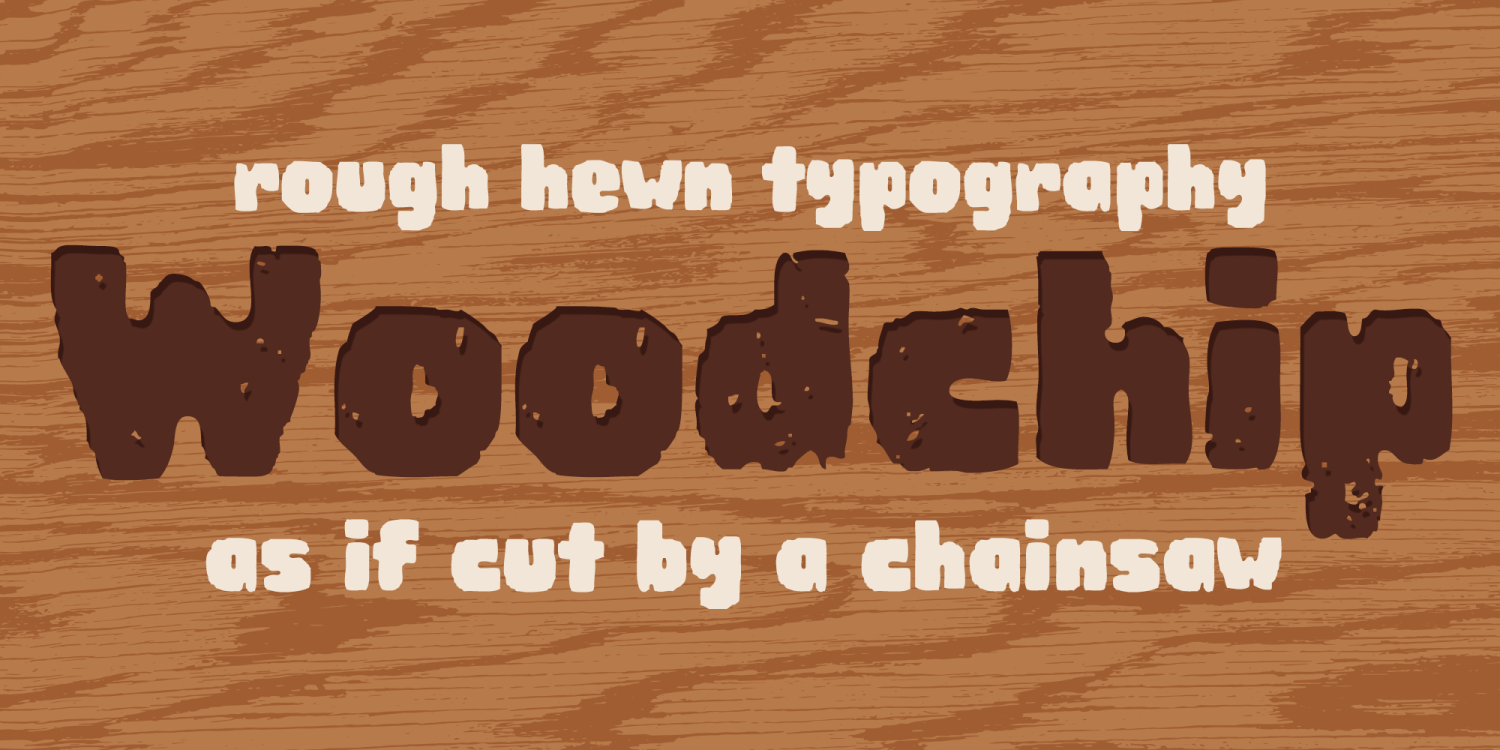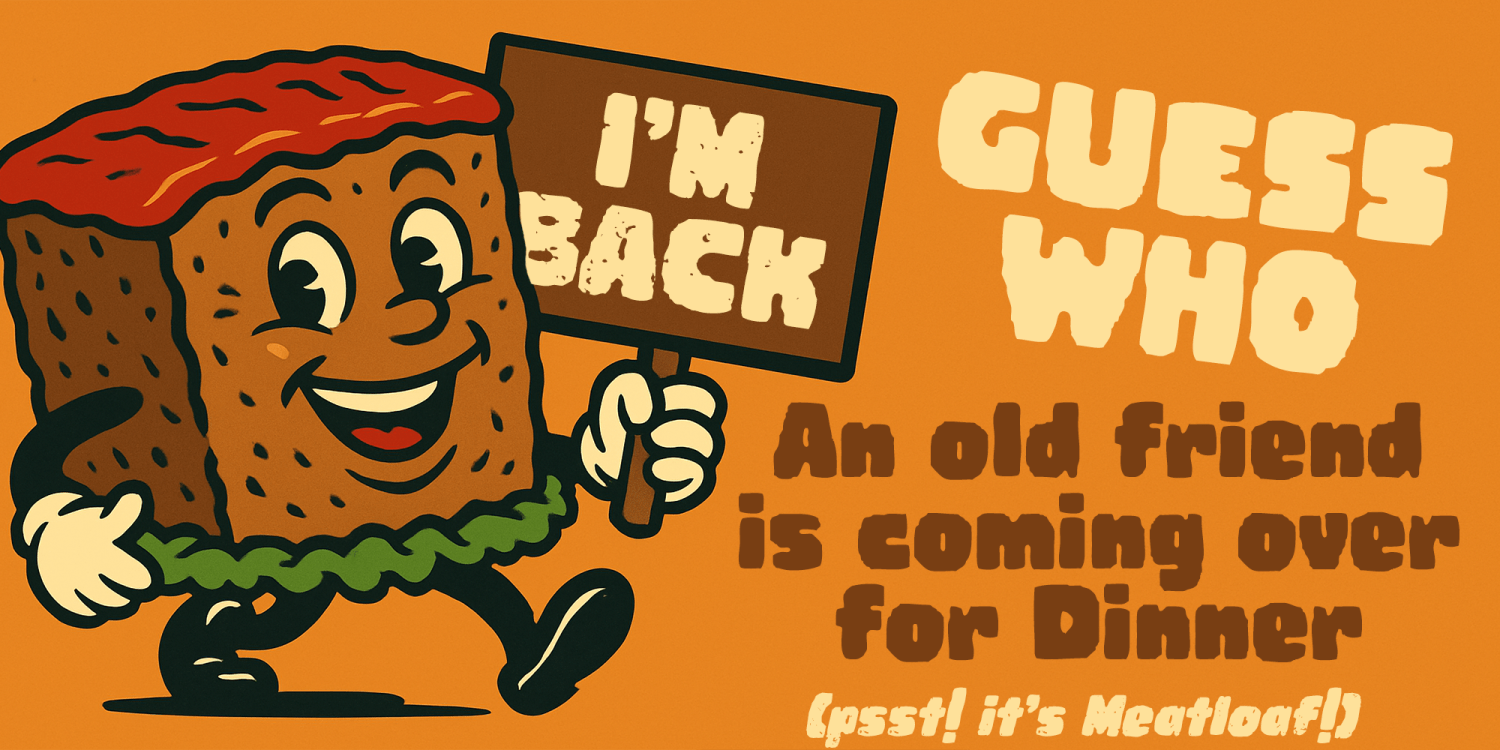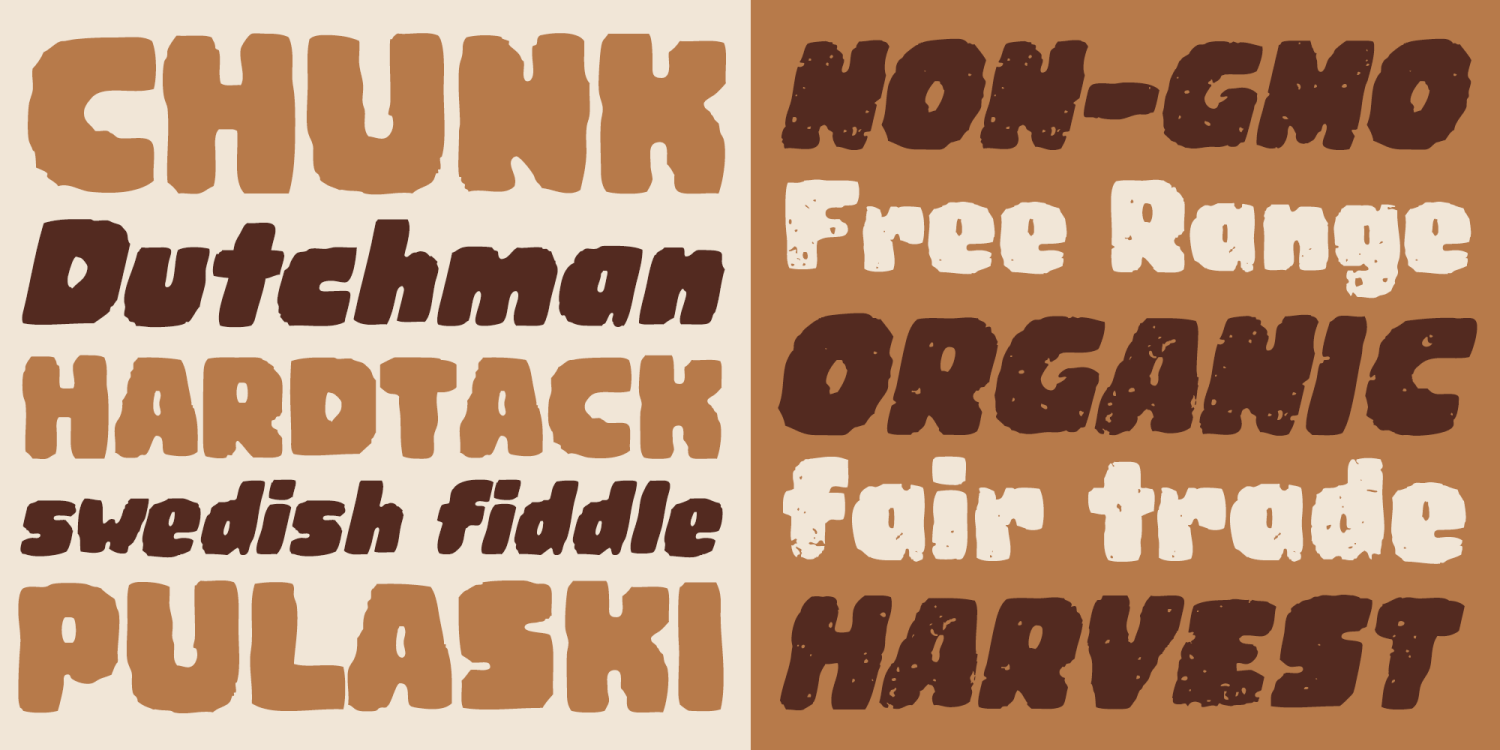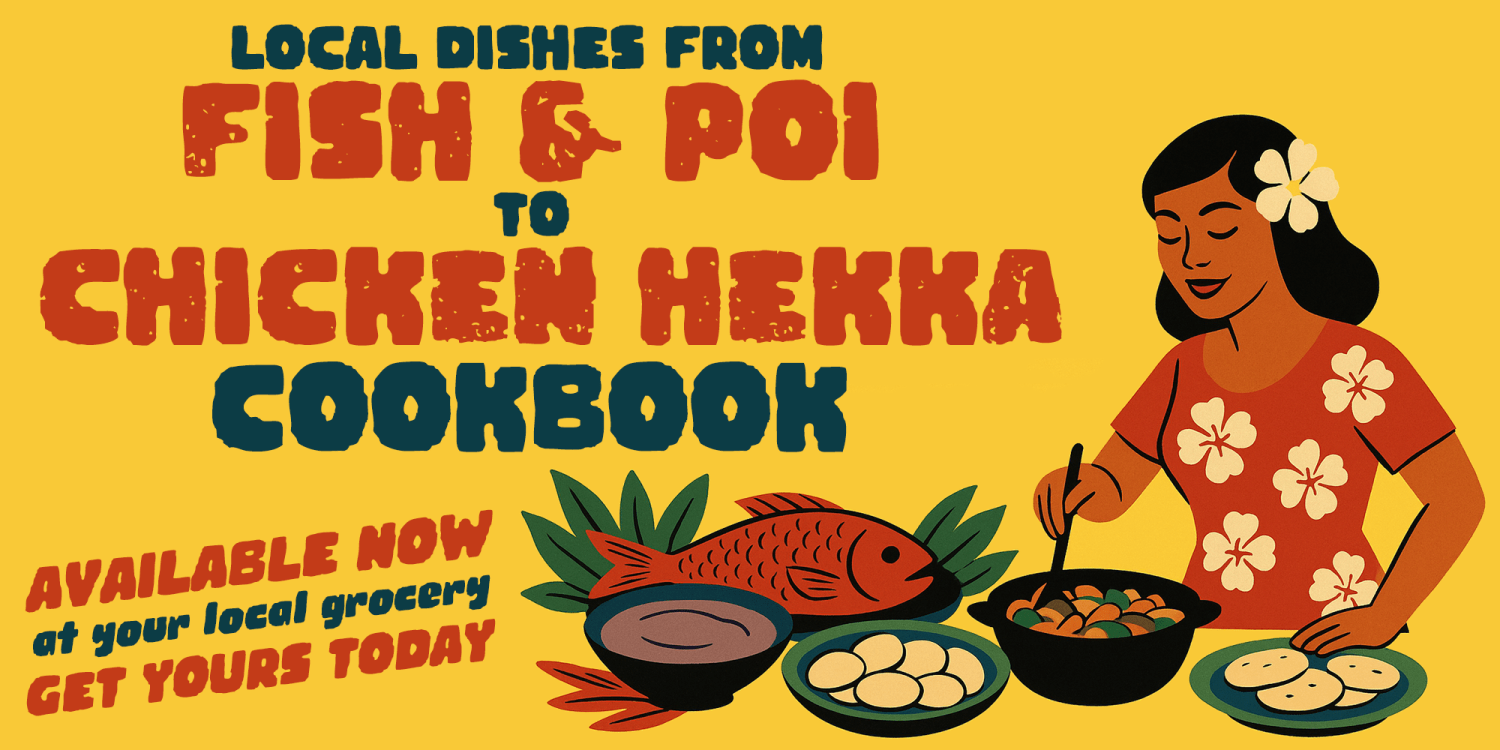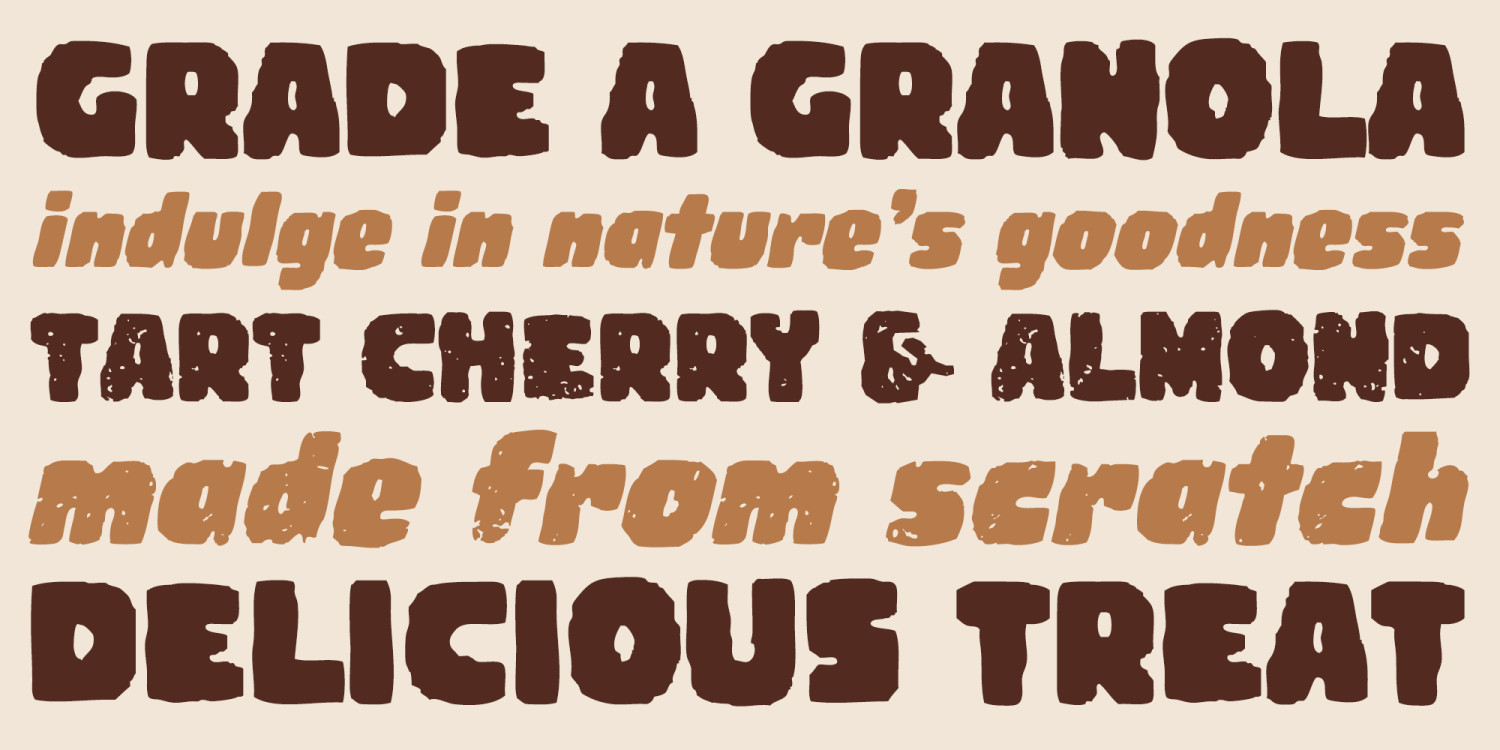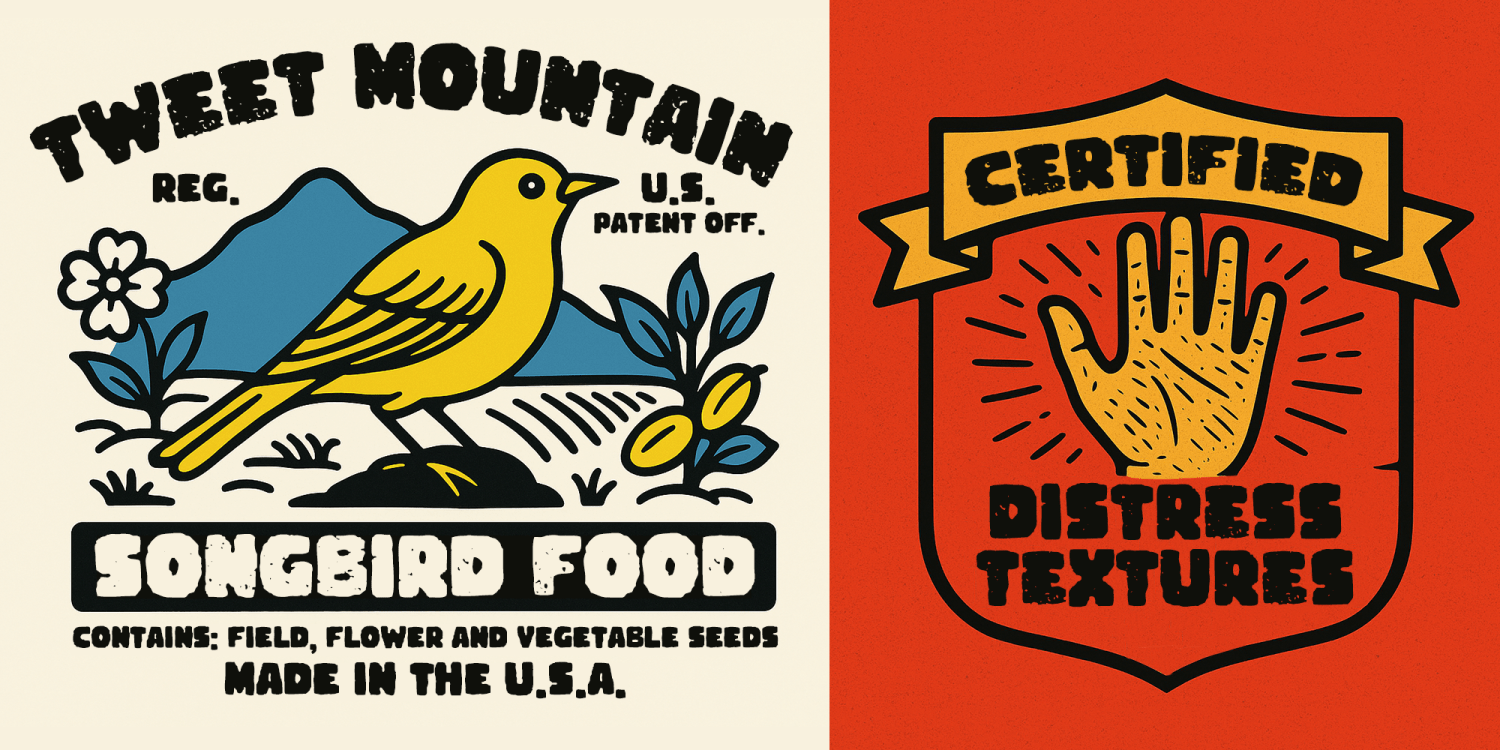
Woodchip
Woodchip is a rough-hewn, worn-and-pitted display font family with a crunchy, hand-cut texture that feels like it was carved from wood and chewed up by time. The letters are chunky, playful, and imperfect—full of dents, nicks, and gritty character—giving you a lively handmade voice that can swing from kid-friendly fun to rugged outdoor edge without losing its personality.
Designed as a collection of complementary styles, Woodchip is comic and approachable enough for children’s products and craft packaging, yet edgy enough for monster truck posters, dirt bike events, outdoor branding, and bold promotional graphics. It shines in titling, logos, labels, signage, and short bursts of copy where the texture adds instant warmth and attitude. If you want type that feels organic, crunchy, and a little wild, Woodchip is ready for the woods.